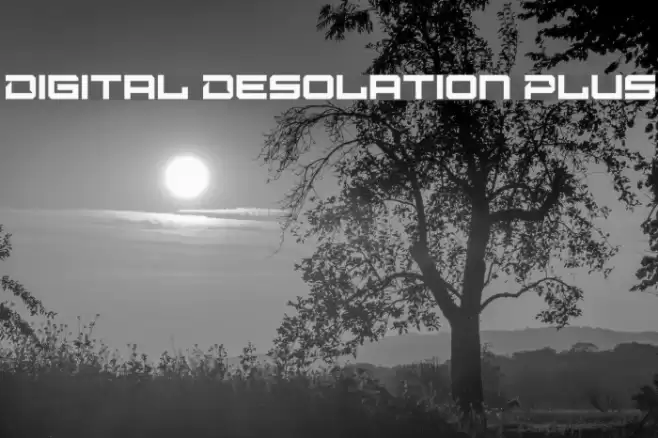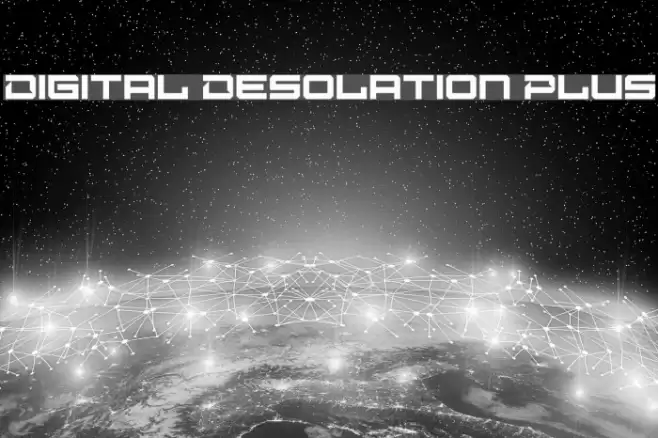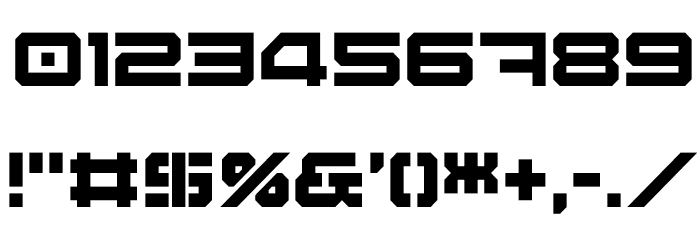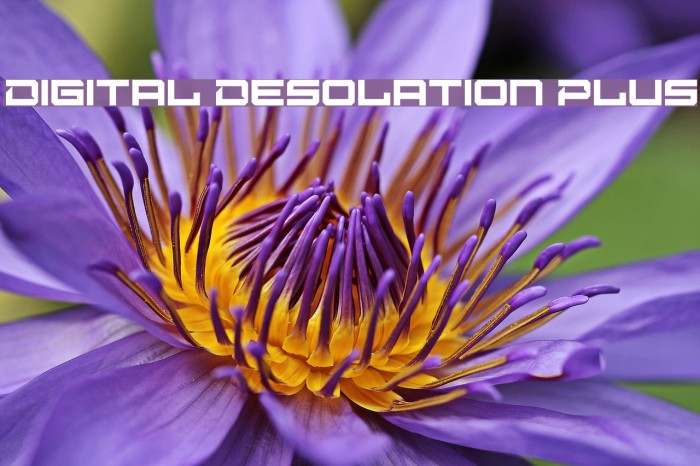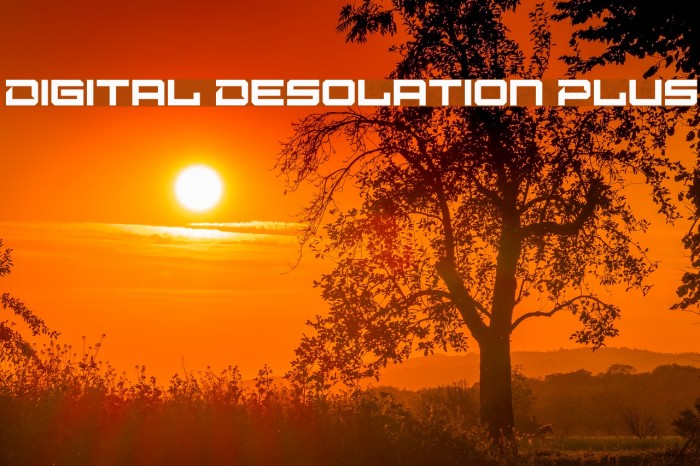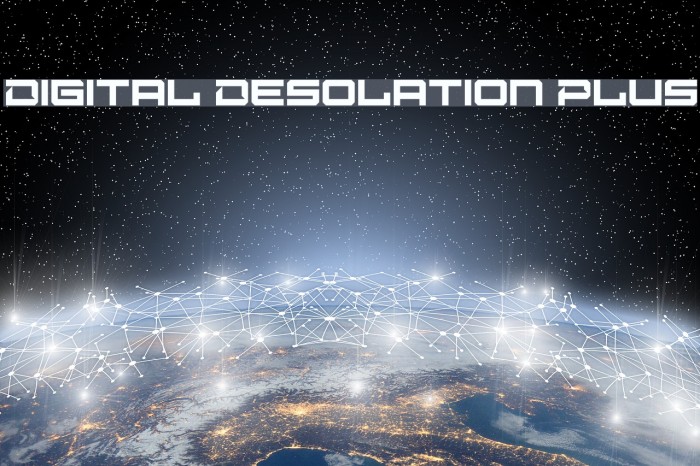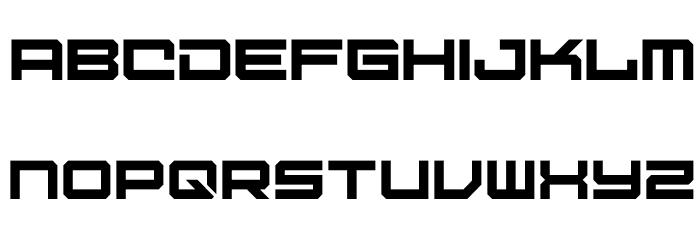
Digital Desolation Plus Font
Digital Desolation Plus Description
This font features a futuristic and angular design, characterized by sharp edges and geometric shapes. The uppercase letters are bold and striking, with a distinct digital aesthetic that suggests a high-tech or sci-fi theme. The lowercase letters maintain the same angular style, ensuring consistency across the typeface. Numbers and special characters are designed to match the overall theme, providing a cohesive look. The font's unique style makes it stand out, ideal for projects that require a modern and edgy appearance.
A futuristic, angular font with a bold, digital aesthetic from Uncategorized fonts.
- Proposed Projects: Ideal for sci-fi movie posters, video game titles, tech branding, and futuristic-themed designs.
- Overall Style: Futuristic